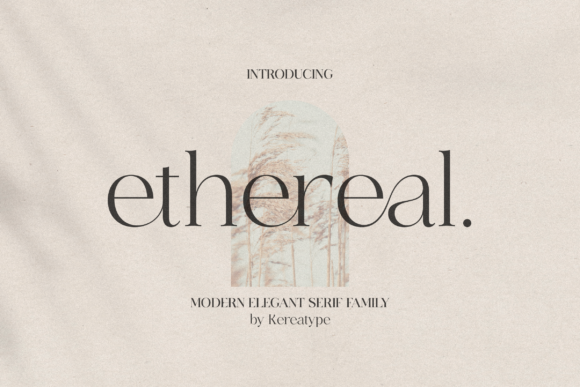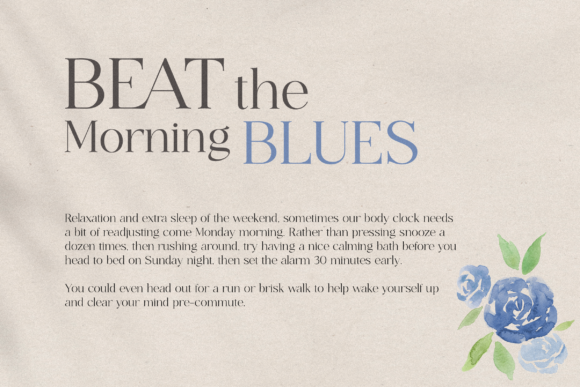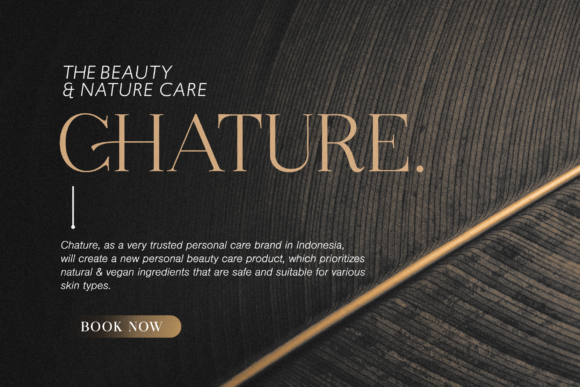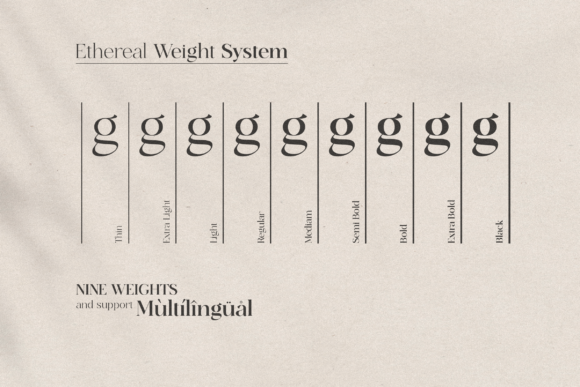
Ethereal Font
About the Ethereal Font
From logos to headlines, the Ethereal Font is the perfect choice for making a lasting impression. Introducing the new ‘Ethereal’ Serif Family font with various weights. It is a fashionable, modern, and elegant serif font with some sexy stylish extras.
This is perfect for branding and logo design. You will get classy, elegant, and certainly unique logos with this font.
Ethereal’s elegant, modern serif design excels in headline applications, branding projects requiring a touch of sophistication, and short-form text on packaging or posters. Its stylish swashes add a touch of personality without overwhelming the design. However, its refined aesthetic is less suitable for body text or UI elements where readability over long stretches is crucial.
Pairing Ethereal works best with clean sans-serif fonts like Open Sans or Lato for a balanced contrast, or a playful script font such as Allura for a more luxurious feel. Geometric sans-serifs could also create a modern and striking combination.
The overall personality of Ethereal is sophisticated and refined, lending itself to brands focused on luxury, fashion, or beauty. Its delicate yet strong forms project an aura of timeless elegance.
Ethereal Font Usage Examples
Ethereal Font Example